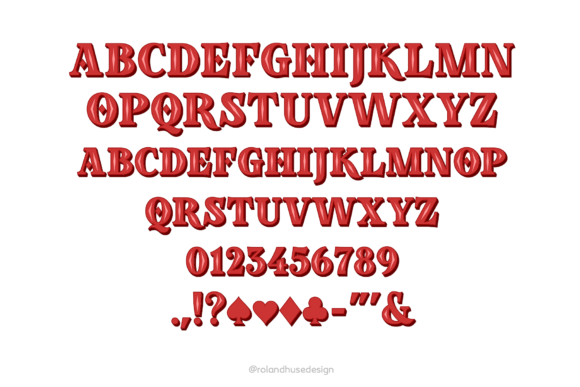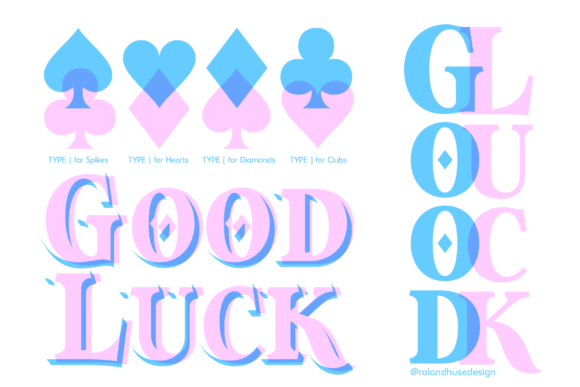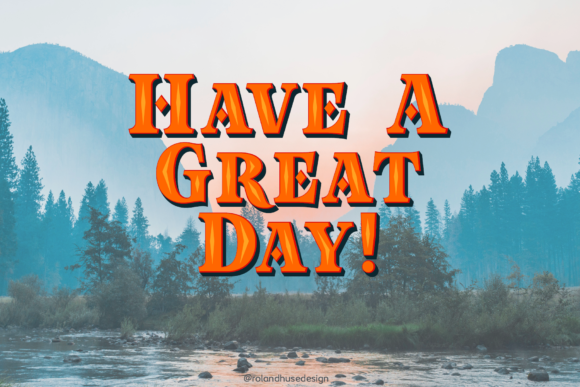
Introduction to Poker in October Font
Have you ever stared at a blank design canvas, trying to conjure up the perfect combination of words to bring your creative project to life? For many designers, it’s that moment of uncertainty that sparks a search for the perfect font. That’s where the Poker in October Font comes in – a stunning, layered All Caps color font designed specifically for making a bold statement in large sizes.
This versatile font is more than just a pretty face; it’s a valuable resource for designers looking to add a touch of sophistication to their designs. With its unique color palette and separate layer functionality, you can customize the Poker in October Font to fit your needs. Whether you’re creating a poster, logo, or social media graphic, this high-quality font is sure to elevate your design to the next level.
Poker in October Font
Honest Review: Poker in October Font
I recently stumbled upon the Poker in October Font, and I was curious to see if it would add some excitement to my creative projects. Overall, I was pleased with the results.
- High-quality design: The Poker in October Font boasts a crisp, clean design that’s perfect for a variety of creative projects.
- Transparent background: The font’s transparent background allows for seamless integration into any design, giving me more flexibility in my creative process.
- Limited font styles: While the Poker in October Font is a great addition to any design, it’s limited to a single font style, which may not be ideal for designers who need a range of options.
- No bold or italic variations: I would have liked to see bold or italic variations of the font to add more depth to my designs.
Overall, I think the Poker in October Font is a solid design resource that can add some personality to your creative projects. While it has its limitations, it’s a great starting point for designers who want a high-quality, free font that’s easy to work with.
Poker in October Font
Design Resource for Creative Projects
The Poker in October Font is a versatile design resource suitable for various creative projects. This font offers a unique blend of style and sophistication, making it an ideal choice for designers.
The Poker in October Font is available for free download and comes with a transparent background, making it easy to use in various design projects. This high-quality font is perfect for creating stunning designs, from posters to social media graphics.
The Poker in October Font is commonly used in:
- Posters and flyers
- Wedding invitations and event materials
To get the most out of the Poker in October Font, use it in combination with other design elements, such as graphics and images, to create visually appealing designs. Experiment with different font sizes, colors, and styles to find the perfect look for your project.